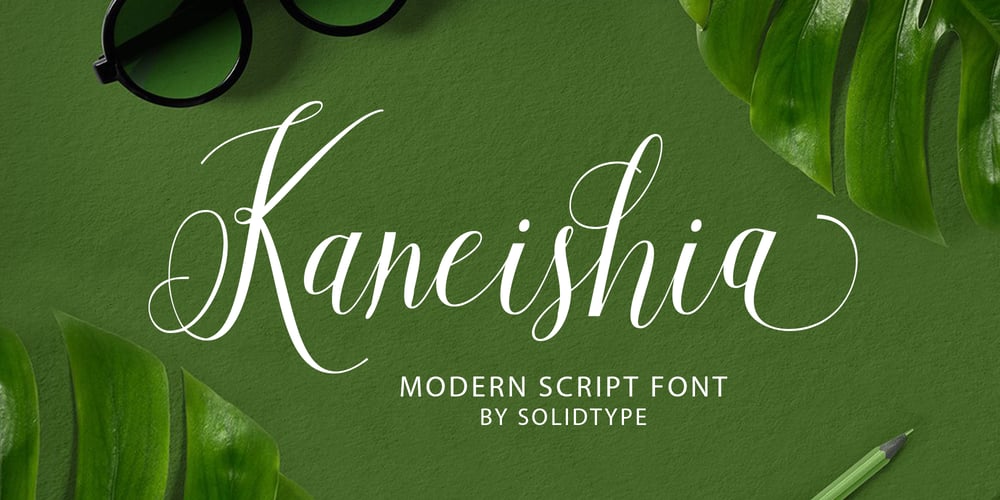
Kaneishia Script
Kaneishia Script font
Kaneishia Script Font Family was designed by Riski Firmana and published by Solidtype. Kaneishia Script contains 1 styles and family package options. A new modern calligraphy font, with elegant touch, stylish and lovely. It comes with a handy set of opentype stylistic, use the beautiful ligatures, alternates and swashes. You need a program that supports OpenType features such as Adobe Illustrator CS, Adobe Photoshop CC, Adobe Indesign, Microsoft Word 2010. It is perfect for logo, greetings, branding, quotes, prints, invitations and crafting. All lowercase letters include alternates, beginning & end swashes, that makes the font look fabulous!These are all coded with PUA Unicode. Mac users can use Font Book and Windows users can use Character Map to view and copy any of the extra characters to paste into your favourite text editor/app. For sans serif only available for uppercase letters, numbers, punctuation and all fonts are available in multilingual support.Thanks and have a wonderful day 🙂